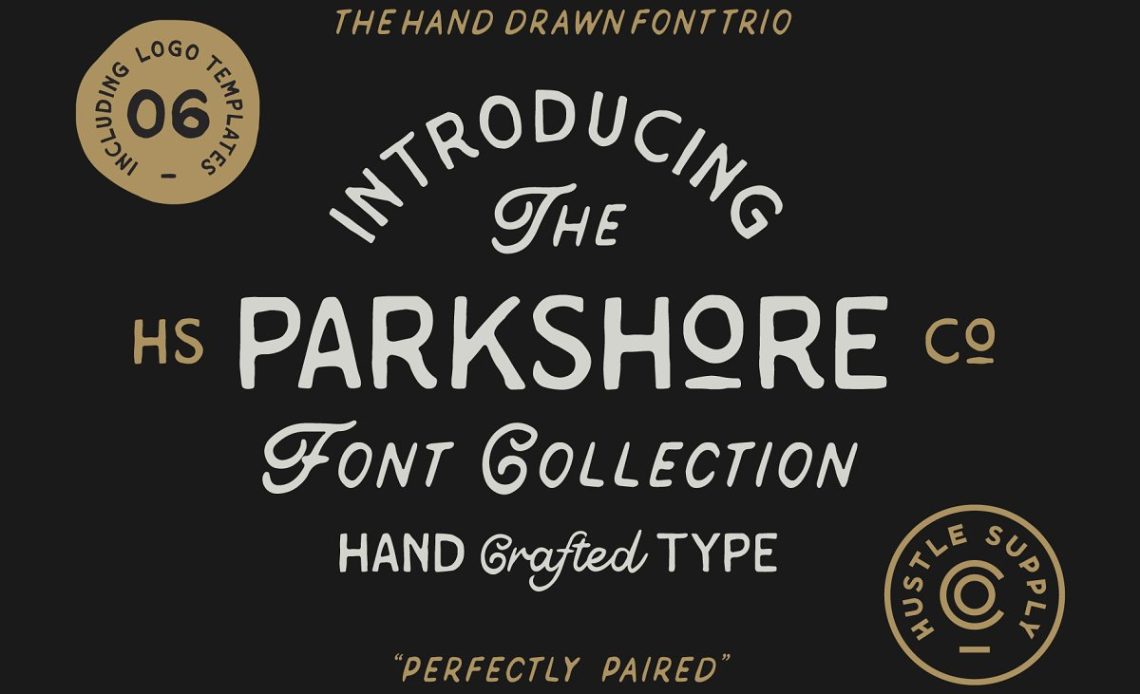
Welcome to The Parkshore Font Collection, the perfect font family for all your script needs! Created by the talented Jeremy Vessey, this collection contains 4 font files and 3 distinct styles that complement each other seamlessly.
The Parkshore Font Collection is not just any ordinary font family. It's the best font for bakery logo, providing you with the most captivating and professional script for your brand. The hand-drawn typeface was carefully crafted using the same pens to ensure consistency throughout the entire collection, creating a natural and beautiful finish that will make your bakery stand out.
But that's not all! The Parkshore Font Collection also offers 6 editable Adobe Illustrator logo templates that you can use as inspiration to build your own merch, wedding invitations, branding elements, advertisements, prints, and more. With .AI and EPS formats for the templates, the possibilities are endless.
Imagine the possibilities for your bakery! With this collection, your brand can elevate itself to new heights. Use it to create stunning logos that truly represent your business and help you stand out in the market. It's versatile, creative, and offers endless possibilities to make your brand unique.